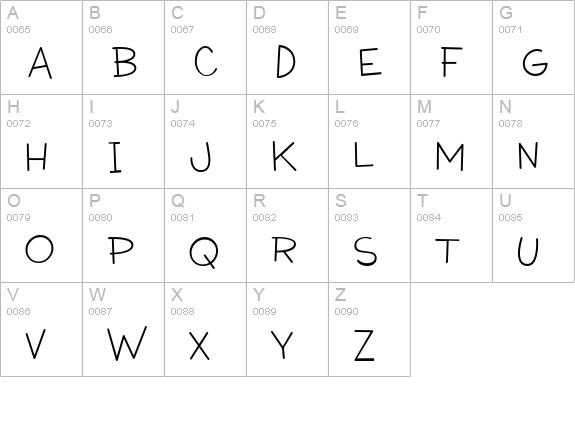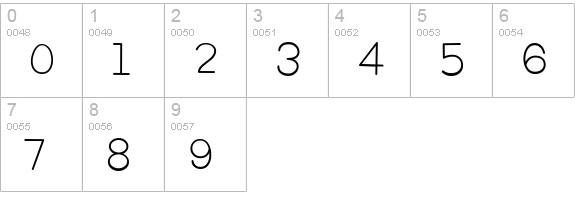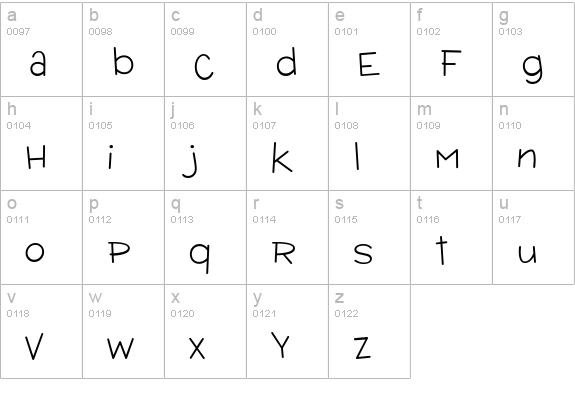
Introducing Wacky Action BTN Lt font, a playful and eccentric typeface that is sure to bring a touch of whimsy to any design project. This font embodies a sense of energy and excitement, making it perfect for adding a dash of creativity to posters, logos, and other visual materials. With its unique and distinctive letterforms, Wacky Action BTN Lt font is guaranteed to catch the eye and leave a lasting impression. Each character has been carefully crafted to evoke a sense of fun and lightheartedness, making it an ideal choice for projects that demand a touch of quirkiness. The best part? Wacky Action BTN Lt font is available for free download at FontsMarket.com. That's right, you can enjoy the benefits of this delightful font without spending a penny. Whether you're a professional designer or a hobbyist, this font is freely accessible to all, allowing you to unleash your creativity without any limitations. Don't miss out on the opportunity to incorporate Wacky Action BTN Lt font into your designs. Its versatility and charm make it suitable for a wide range of applications, from children's books to advertising campaigns. So go ahead and download this font today from FontsMarket.com and let your imagination run wild!